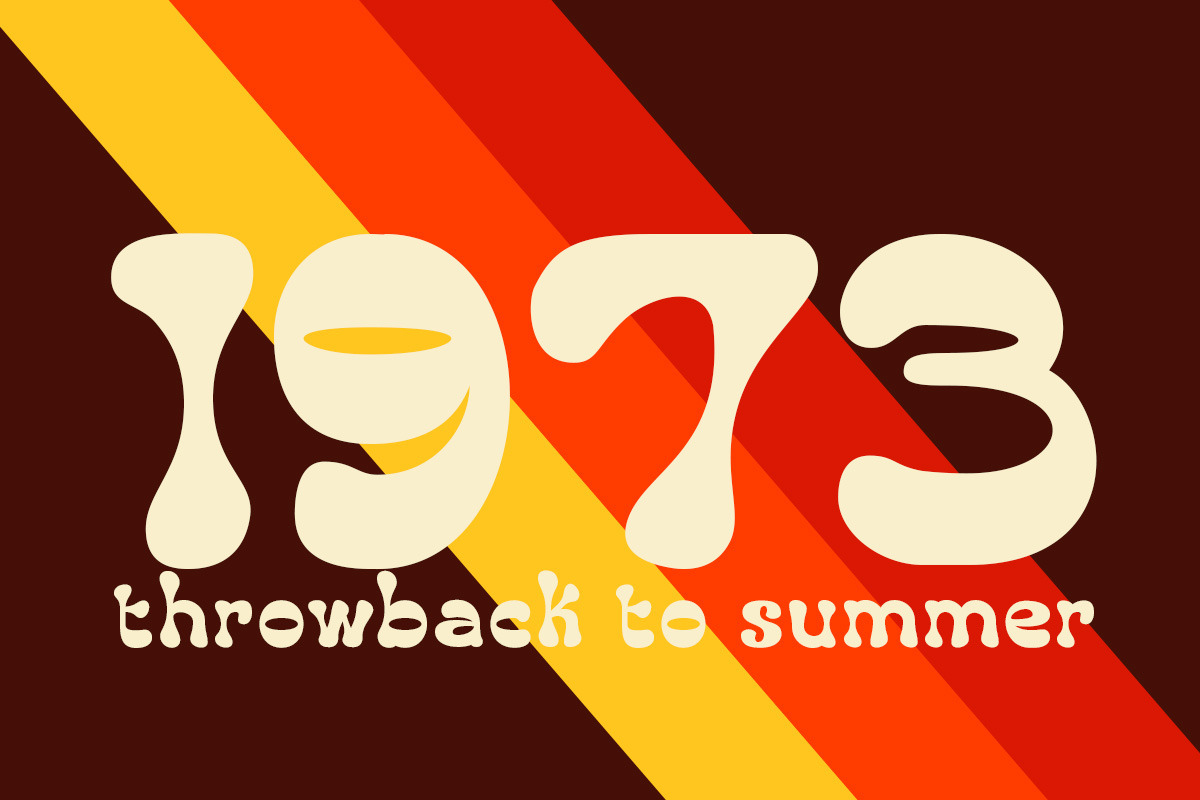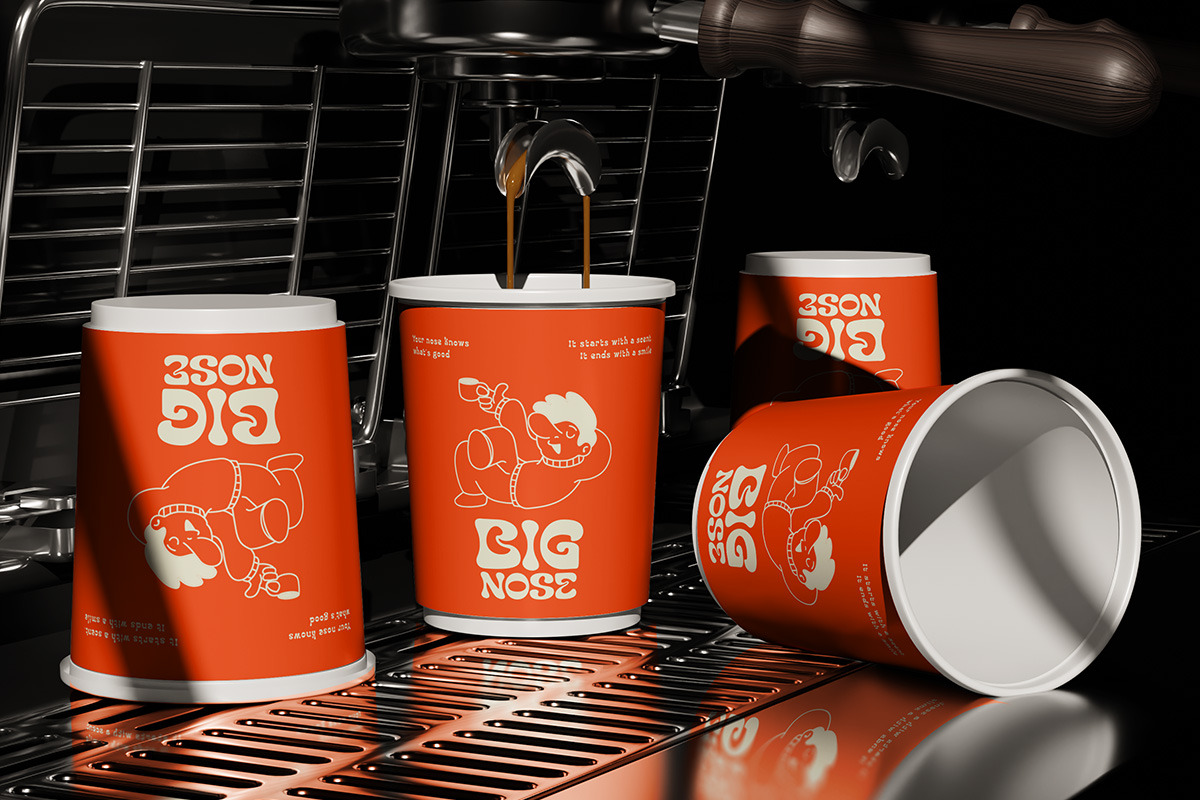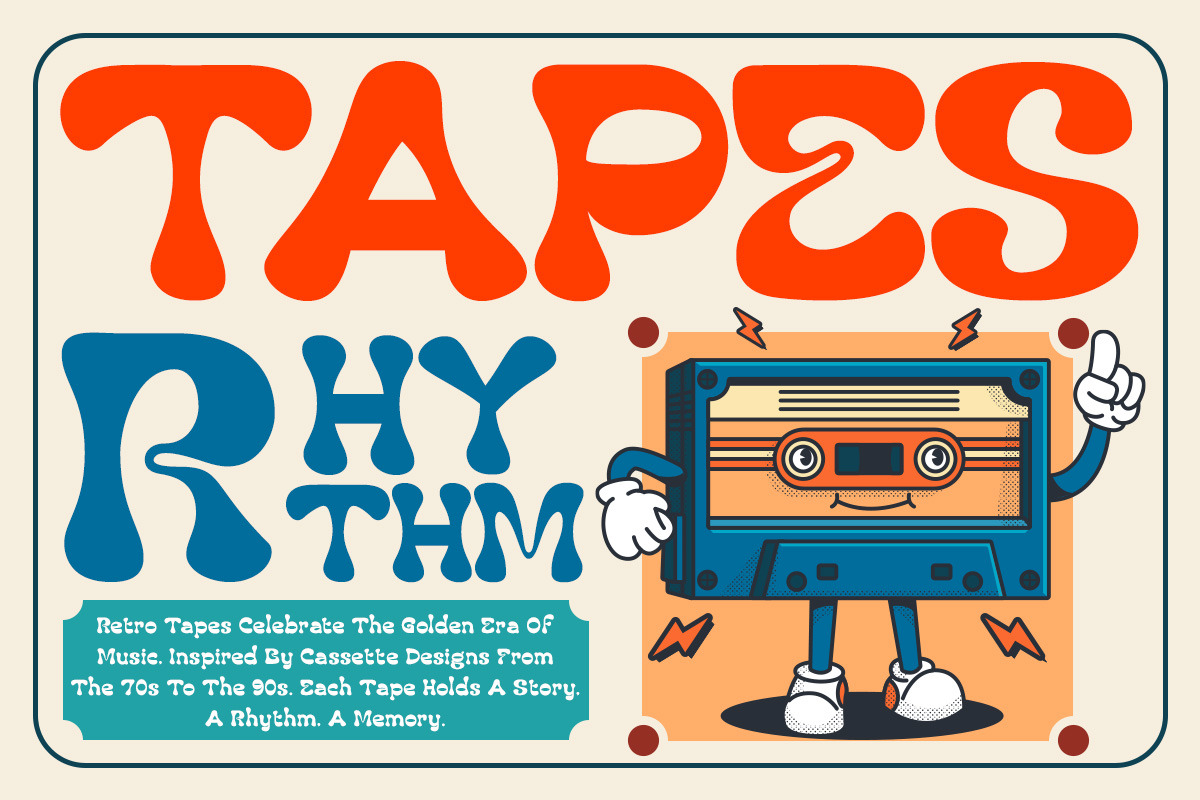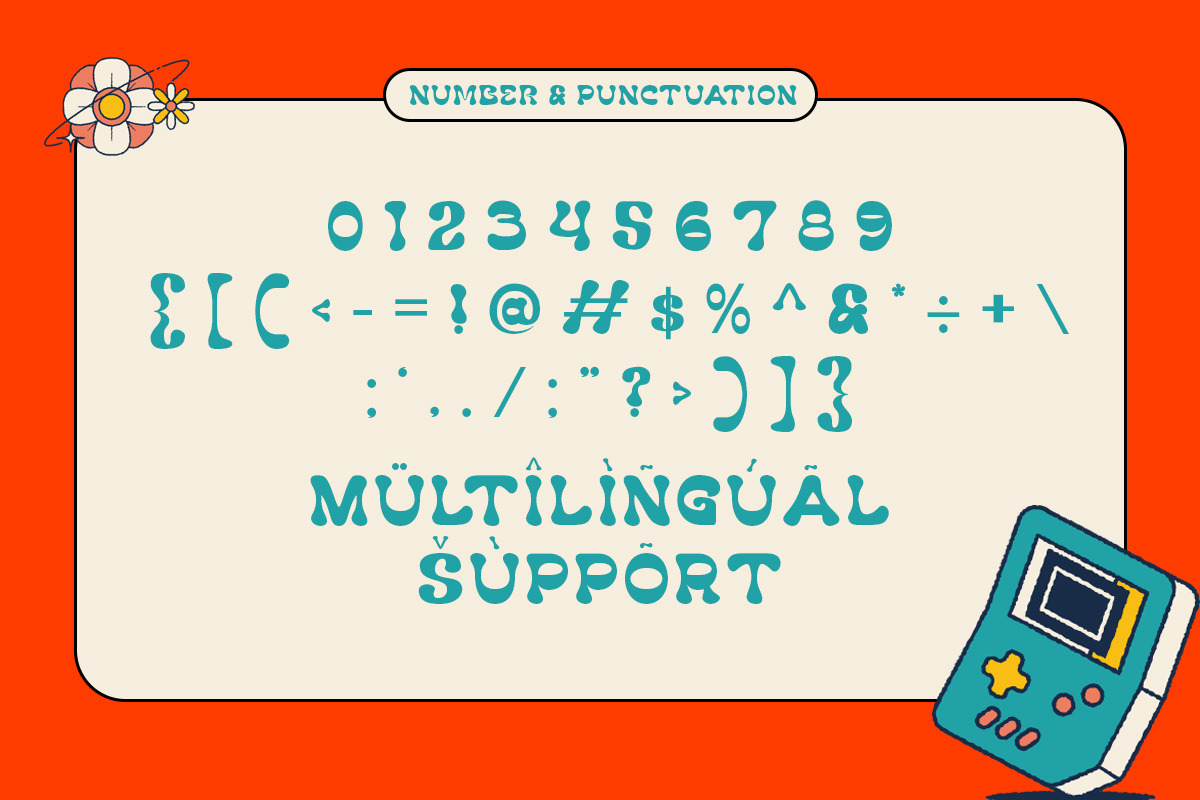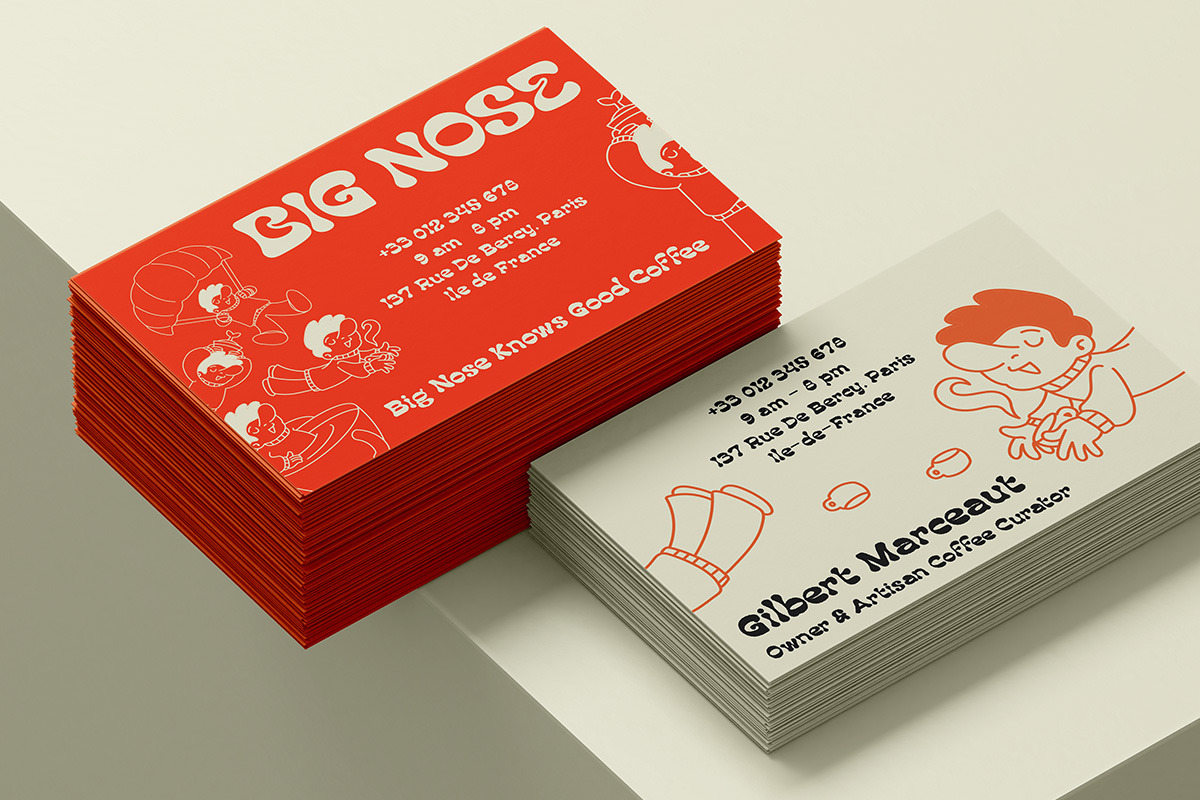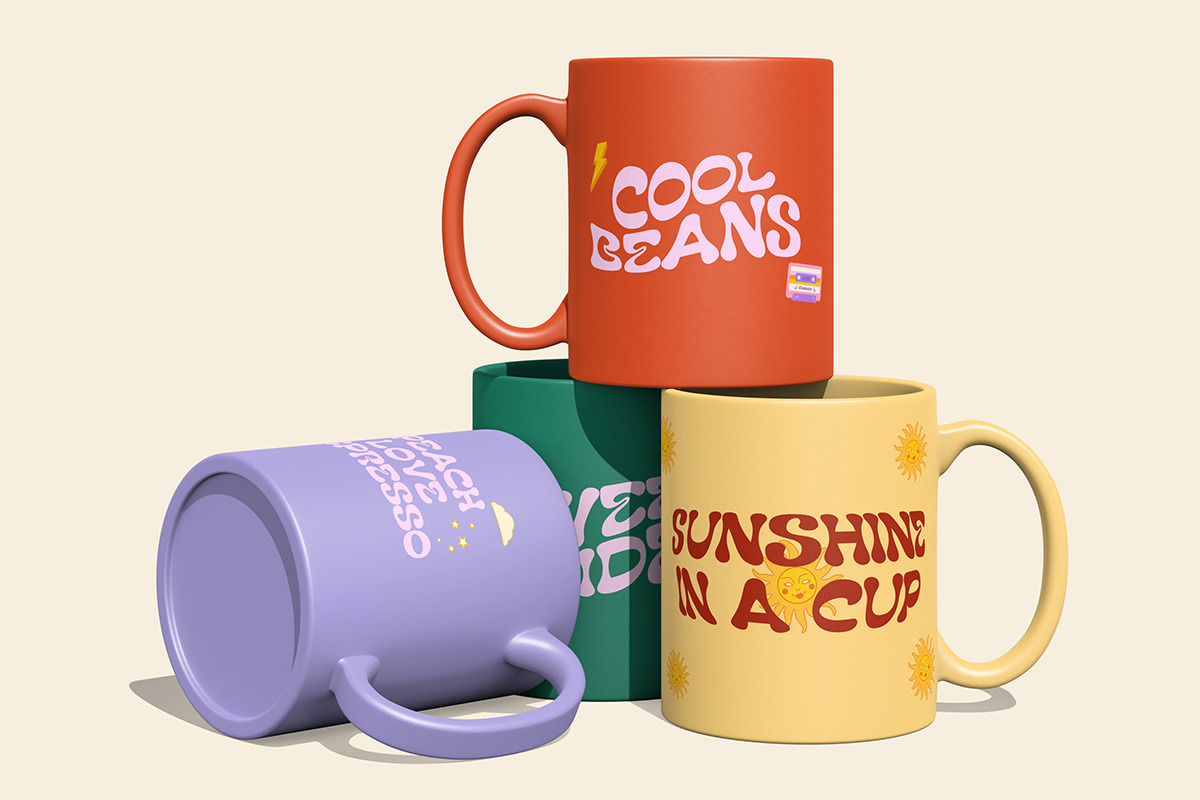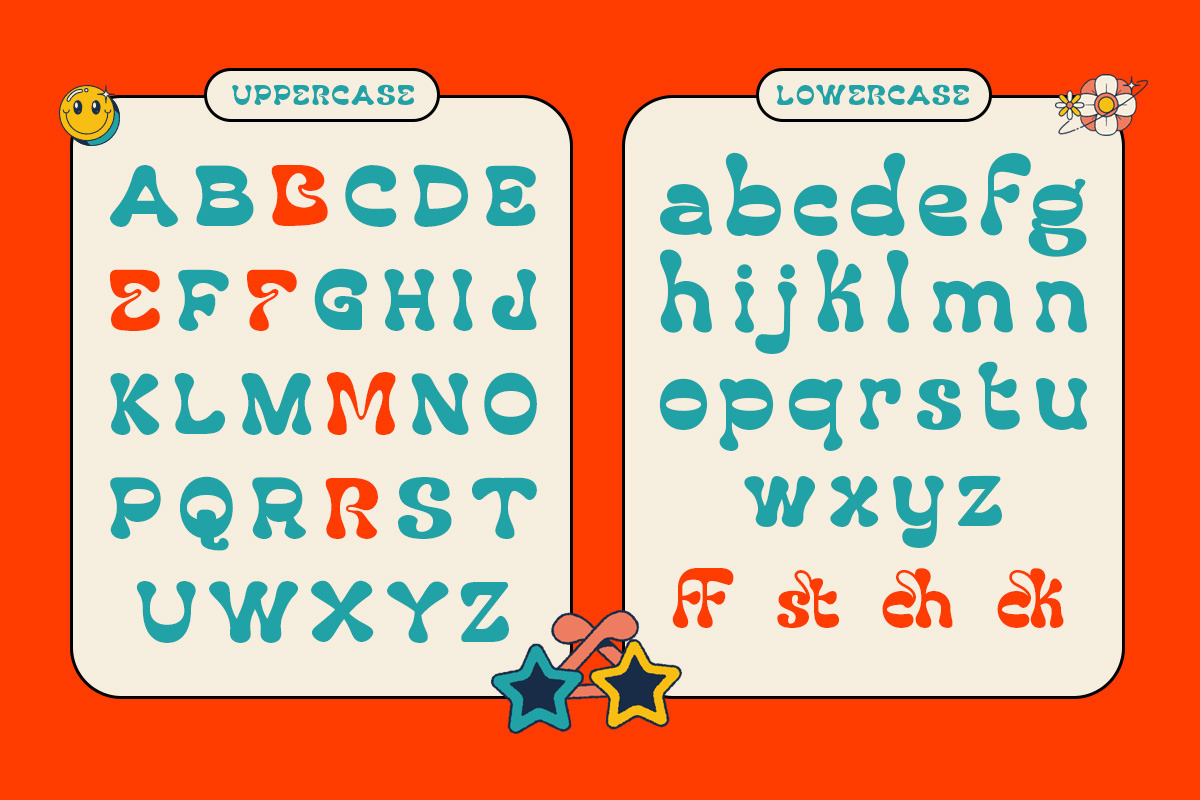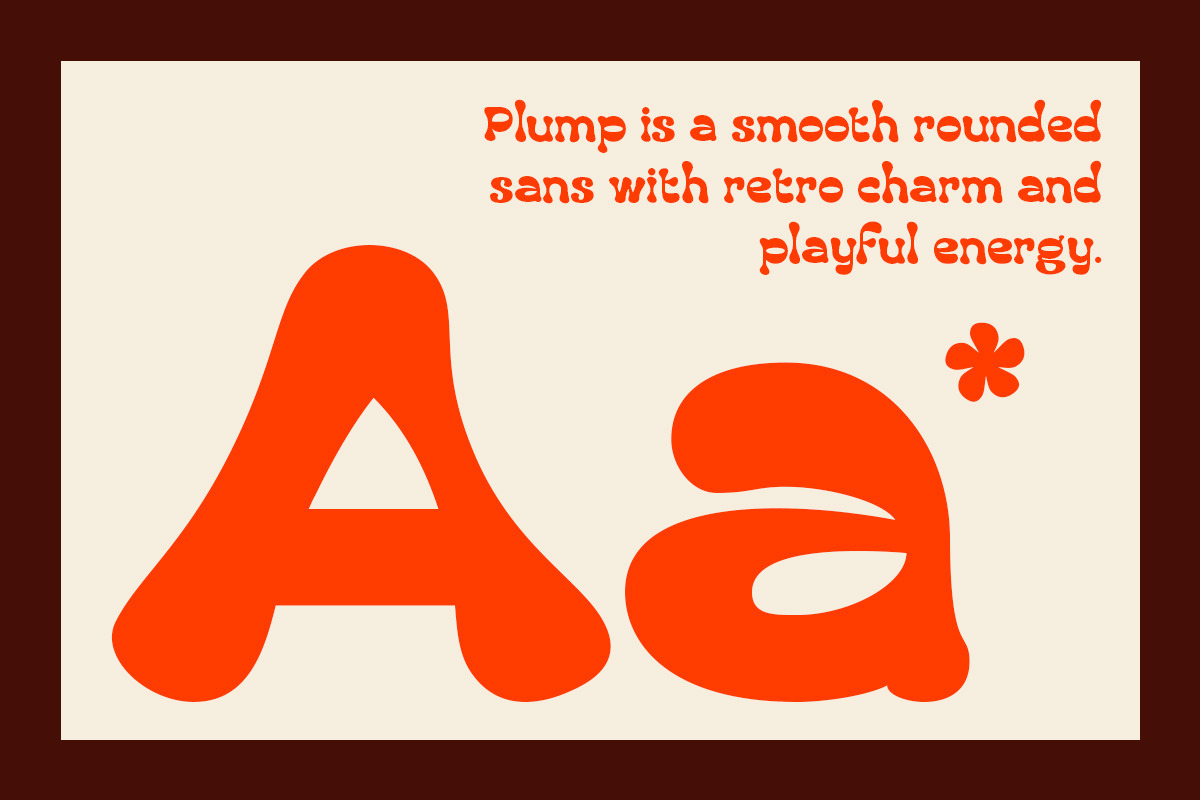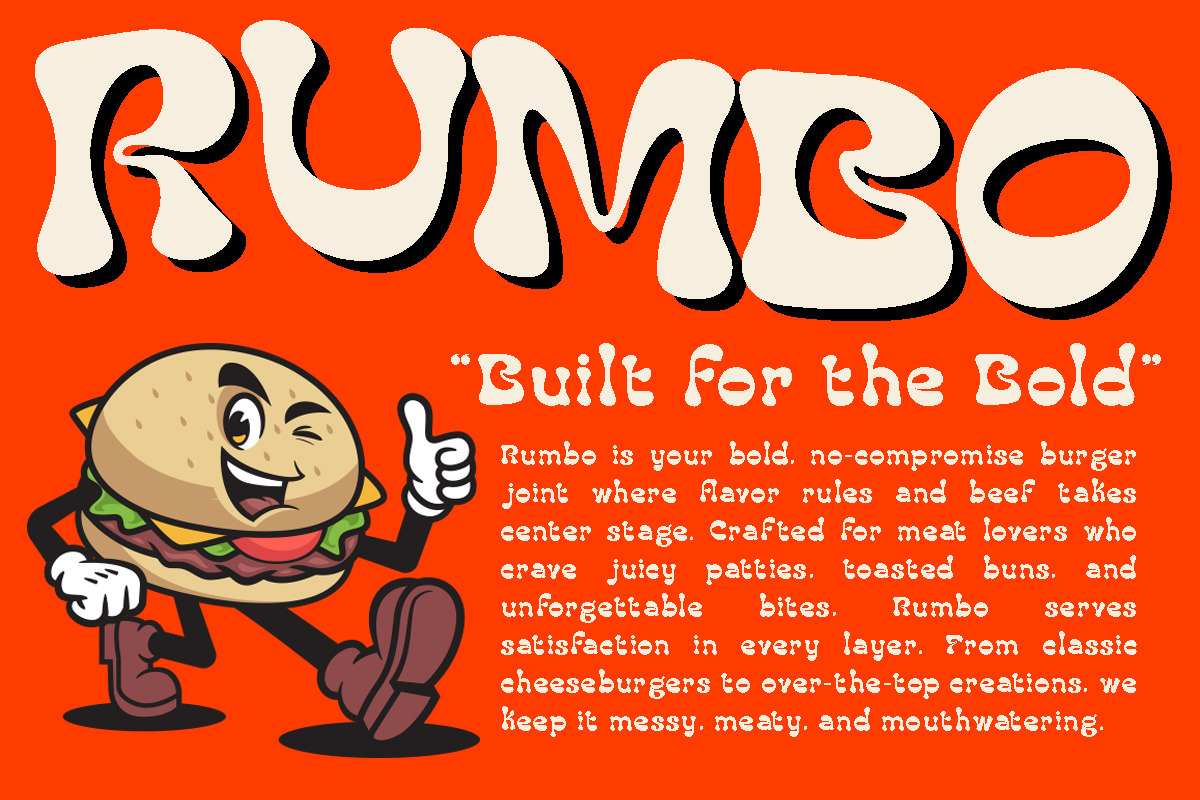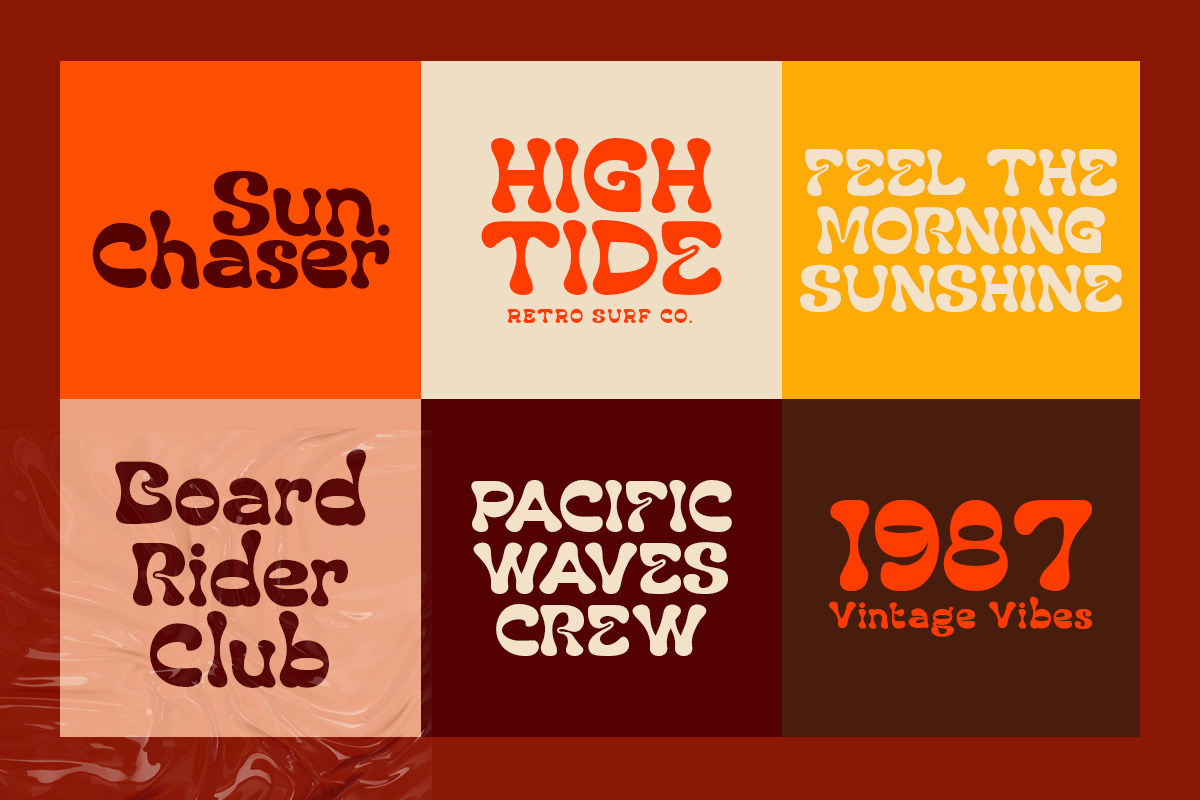
Savor Whibly – Funky Display Font
Savor Whibly is a uniquely shaped modern display font that radiates energy, creativity, and character. Its soft curves, quirky forms, and retro-inspired structure offer a bold yet friendly feel that instantly grabs attention. Designed to break the mold, Savor Whibly is perfect for creators who want their work to stand out with style and personality.
From bold logos and expressive headlines to creative branding and editorial layouts, this font adds a playful twist to your design projects. Whether you're designing posters, flyers, children’s book covers, or packaging, Savor Whibly brings a cheerful, fun, and approachable tone to every visual expression. Its maximum visual impact makes it a reliable choice for anyone seeking both charm and uniqueness in one typeface.
Savor Whibly is also a fantastic option for web banners, motion graphics, or any design that needs a spark of bold personality. Its versatility and vibrant rhythm make it ideal for both digital and print use, empowering designers to infuse their work with expressive flair and joyful character.